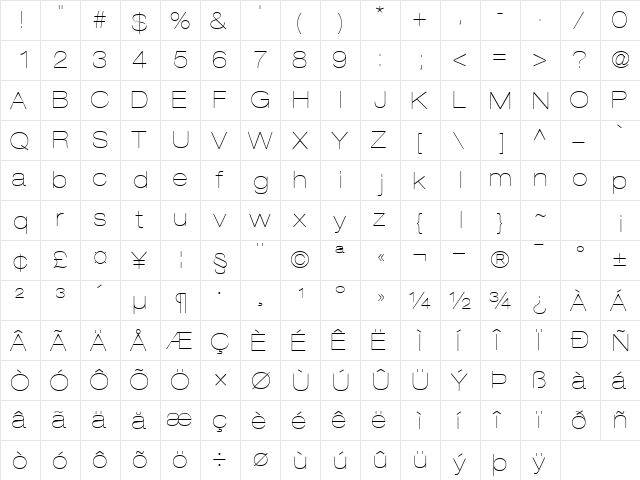
ContextRepriseLightExpSSK Regular
Design Context for ContextRepriseLightExpSSK Typeface
ContextRepriseLightExpSSK offers clean, dependable letterforms without strong stylistic allegiance, making it a practical choice for designers who need flexibility. The delicate stroke weight brings airiness and refinement to layouts.